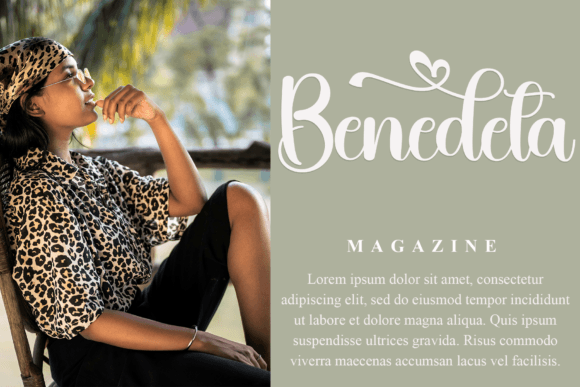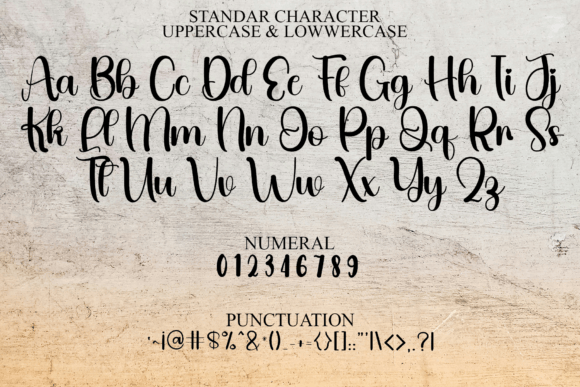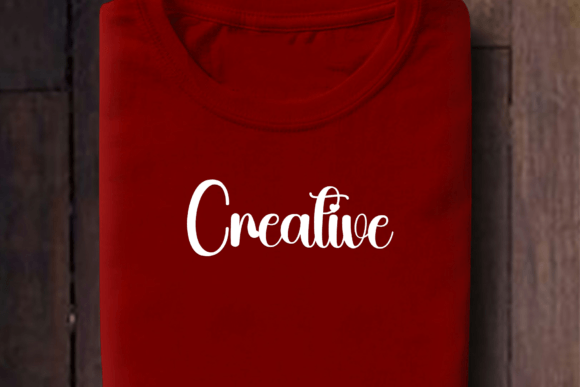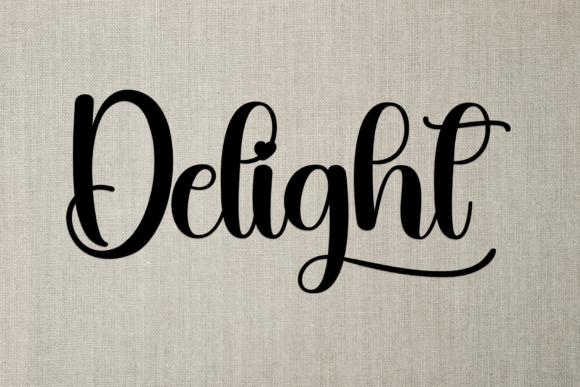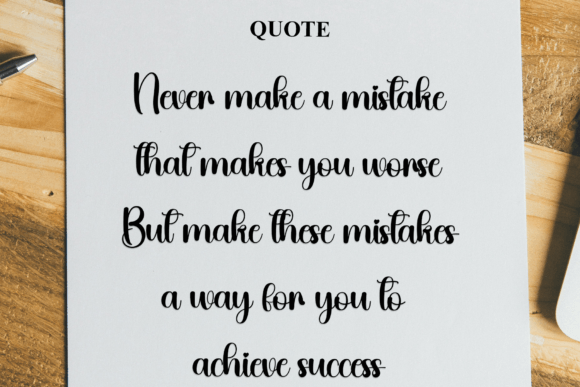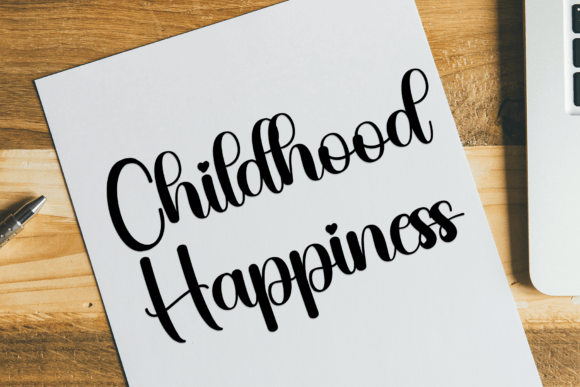
The Secret to Elevating Your Design: Bageline Font
Have you ever stared at a blank canvas, desperate for that one element to bring your design to life? The frustration is real, but what if I told you that the solution lies in a delicate, elegant, and flowing handwritten font? Introducing Bageline Font, the perfect addition to your most creative ideas.
Bageline Font is more than just a pretty face – its beautiful and well-balanced characters make it a versatile choice for a wide range of designs. Whether you’re a seasoned designer or just starting out, this font is sure to be a valuable asset in your toolkit. With its PUA coding, you’ll have easy access to all the amazing glyphs and ligatures, taking your designs to the next level.
Bageline Font Key Features
- Font Style: Script, Handwritten
- Unique Characteristics: Handwritten style with elegant, cursive lines, suitable for titles, headings, and creative projects
Bageline Font Review
As a designer, I’ve had the chance to work with Bageline Font, and I must say it’s a unique and interesting addition to my font collection. ✨ One of the things that works well with Bageline Font is its cursive nature, which makes it perfect for creative projects that require a touch of elegance and sophistication. ✨ The font’s curves and flourishes are well-designed, and it’s easy to read even at smaller font sizes. ✨
However, there are some limitations to consider. ⚠️ For one, the font may not be the best choice for projects that require a more formal or serious tone, as it can come across as a bit too playful or whimsical. ⚠️ Additionally, the font’s cursive nature can make it difficult to use for projects that require a lot of text, as the lines can become tangled and hard to follow. ⚠️
Overall, I would give Bageline Font 3.5 out of 5 stars. It’s a great choice for creative projects that require a touch of elegance and sophistication, but it may not be the best choice for more formal or serious projects. If you’re looking for a fun and playful font to add some personality to your designs, Bageline Font is definitely worth considering.
- ✨ Unique and elegant cursive design
- ✨ Easy to read at smaller font sizes
- ⚠️ May not be suitable for formal or serious projects
- ⚠️ Can be difficult to use for projects with a lot of text
Getting the Most Out of Bageline Font
To get the most out of Bageline Font, try the following:
- Experiment with different font sizes and styles.
- Combine Bageline Font with other fonts for a unique look.
- Use Bageline Font for headings and titles to create visual hierarchy.
Bageline Font is ideal for:
- Designing wedding invitations and stationery.
- Creating elegant business cards and brochures.
- Designing menus and event signage.
Alternatives to Bageline Font
Bageline Font is a modern sans-serif font known for its clean lines and elegant feel. However, designers may be looking for alternative fonts that offer similar characteristics or unique features. Here are a few options:
Montserrat is a geometric sans-serif font designed for urban environments. It features a strong, modern look and clean lines, making it a great alternative to Bageline Font for designers who want a more geometric feel.
Comparison: Montserrat has a more geometric feel than Bageline Font, with a stronger emphasis on angular lines and a more industrial look. Use Montserrat when you want a font that exudes a sense of modernity and urbanity.
Lato is a modern sans-serif font that features a clean, elegant design. It has a more rounded feel than Bageline Font, making it a great alternative for designers who want a font with a softer, more approachable look.
Comparison: Lato has a more rounded feel than Bageline Font, with a softer emphasis on lines and a more classic look. Use Lato when you want a font that feels approachable and easy to read.
Open Sans is a modern sans-serif font that features a clean, neutral design. It has a more minimalist feel than Bageline Font, making it a great alternative for designers who want a font that feels simple and unobtrusive.